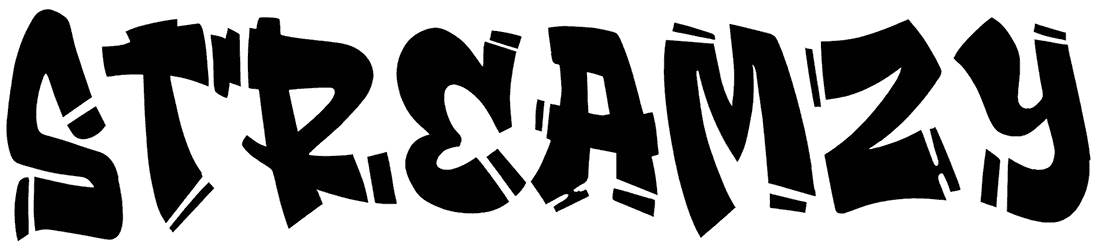
Streamzy Font
If you want to add a sense of personalization, innovation, grunge, and urban to your artwork, a script graffiti font like Streamzy can live up to your expectations. This font, which is designed in a grunge style, does not support lowercase letters, whereas it can enhance the quality of movie and video game posters, stickers, and digital banners.